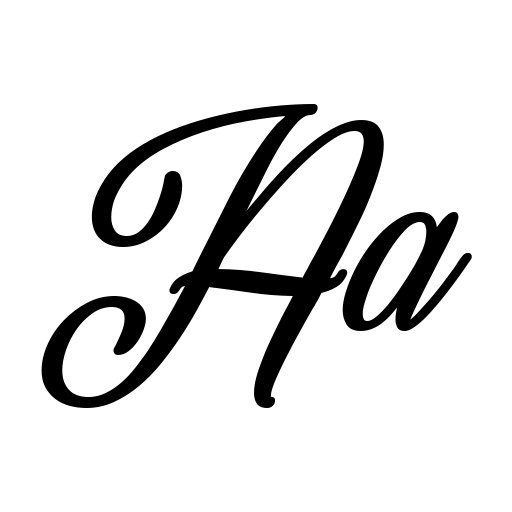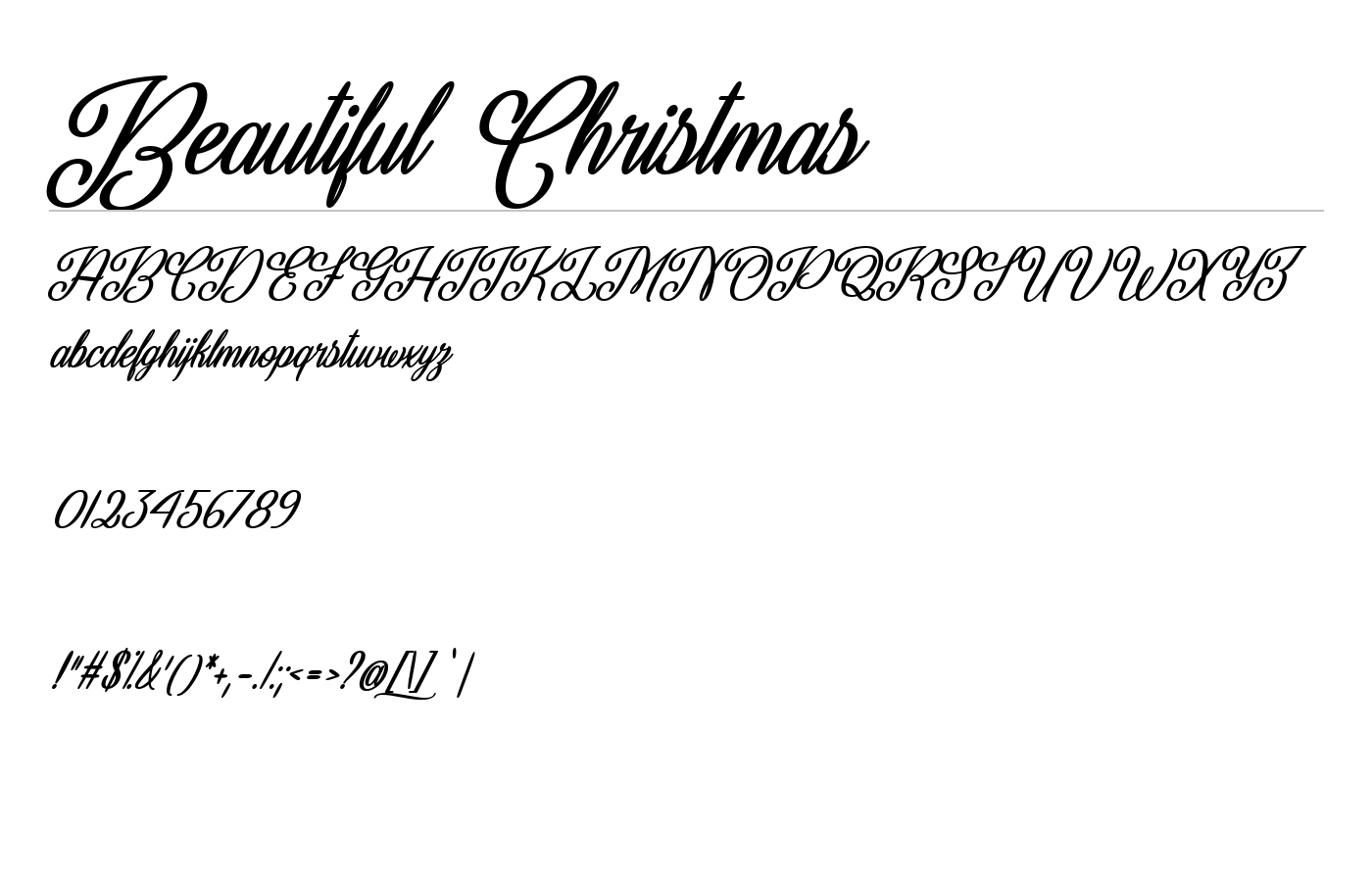
Beautiful Christmas Font is an elegant script typeface with flowing, slender strokes and a classic handwritten feel. Its delicate thin lines and graceful curves make it perfect for festive invitations, holiday branding, and decorative headlines that require a refined and joyful touch. This font’s stylish and sophisticated personality works well in seasonal designs where a warm, celebratory, and classic look is desired.
Beautiful Christmas Font
About Beautiful Christmas Font